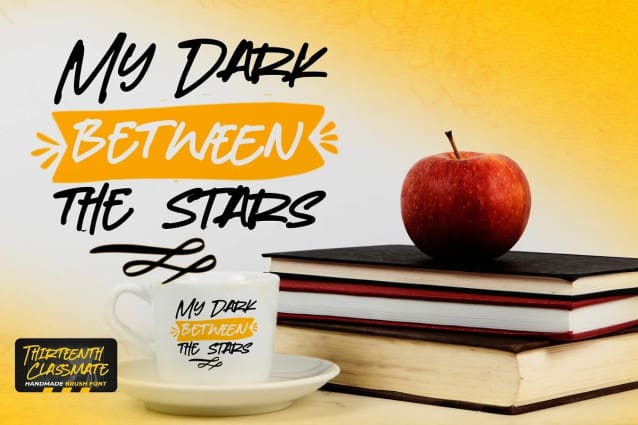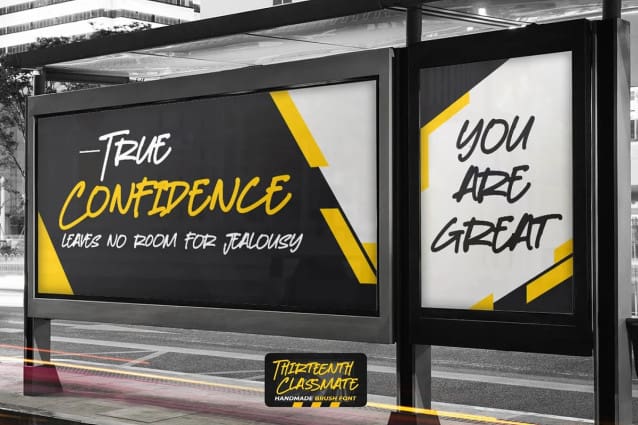
Thirteenth Classmate Font
Thirteenth Classmate Font – Handmade Brush Font is a Authentic Natural Style and classy style, this font is great for your creative projects such as watermark on photography, and perfect for logos & branding, photography, invitation, watermark,advertisements,product designs, stationery, wedding designs,label ,product packaging, special events or anything that need handwritting taste.
Thirteenth Classmate a natural handwritten feel. This handmade font will make your design has a beautiful natural touch for each details. It is perfect for any design project as Invitation,logo, book cover, craft or any design purposes. photos, photography overlays, signs, window art, scrapbooking, tags and so much more!